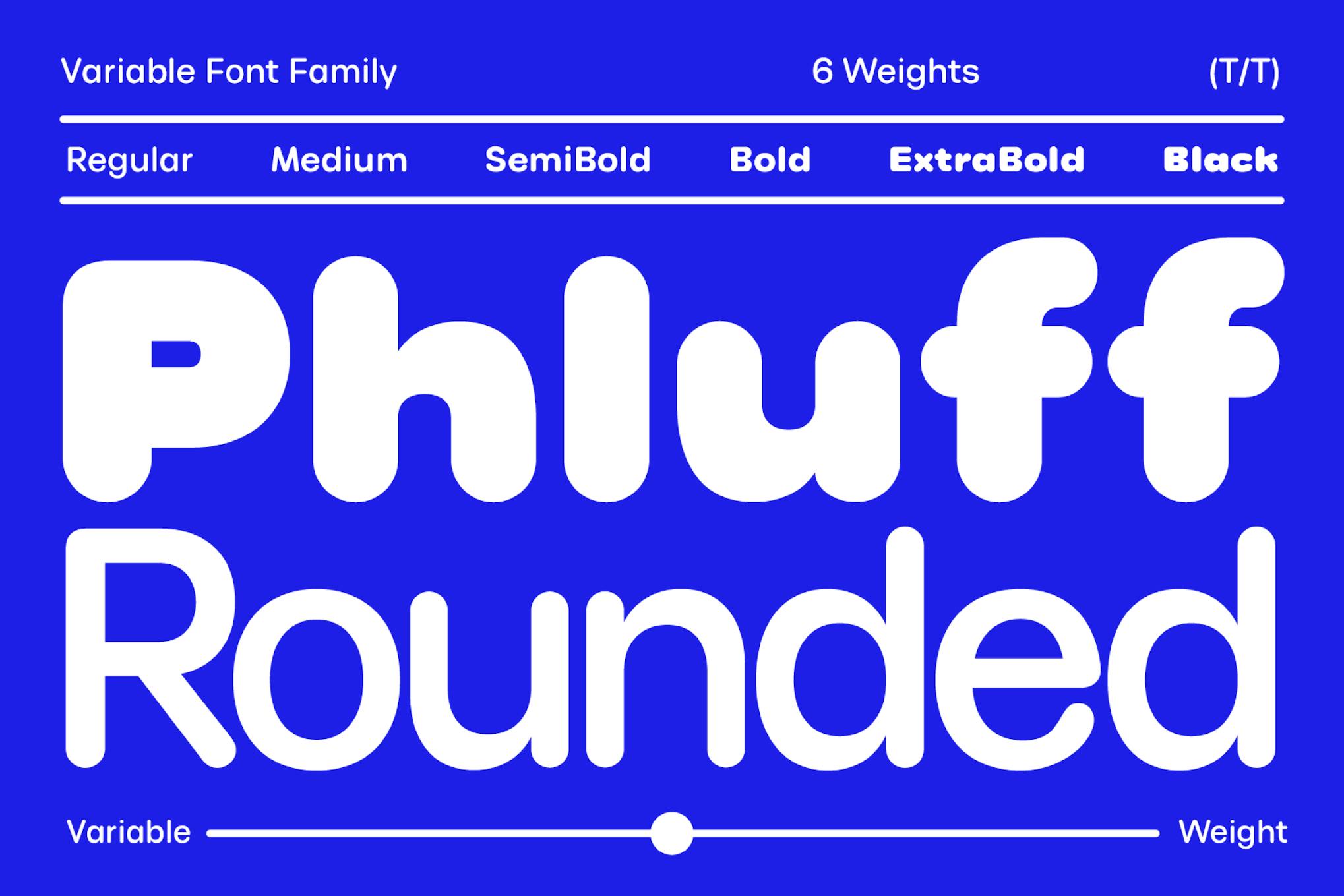
Round Sans Font Phluff
Perfect for friendly branding, children’s books, apps, logos, packaging, and web interfaces.
The Round Sans Font Phluff excites designers with its smooth, rounded edges and playful, approachable style that instantly adds warmth and friendliness to any project.
The Round Sans Font Phluff Free Download is a charming typeface designed to bring softness and modernity to your designs. Its rounded letterforms create an inviting, easy-going vibe, making it perfect for projects targeting younger audiences or brands that want to appear approachable and fun. Whether you’re designing app interfaces, children’s books, or cheerful packaging, Round Sans Phluff shines with personality.
One of the key strengths of Round Sans Font Phluff is its readability combined with a unique, friendly aesthetic. Despite its playful curves, the font remains clean and professional, working well for both headlines and body text.
In branding, Round Sans Phluff conveys warmth, friendliness, and creativity. It pairs excellently with bright colors, simple layouts, and vibrant illustrations, helping brands connect emotionally with their audience.
For digital projects, this font enhances website headers, social media graphics, and mobile app designs with its smooth, rounded style. Its approachable character ensures your digital content feels welcoming and engaging.